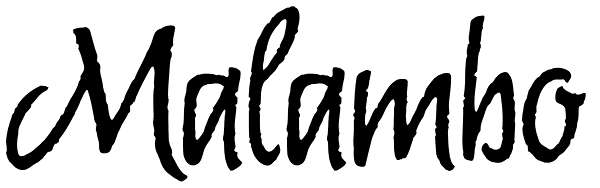
Malambo
The master of the dancing brush, Angel Koziupa, and the node-obsessed perfectionist, Alejandro Paul, offer up another bucket of fun with Malambo. This time Koziupa allows his brush to jitter one whole millimeter, and Paul digitizes with two eyes...